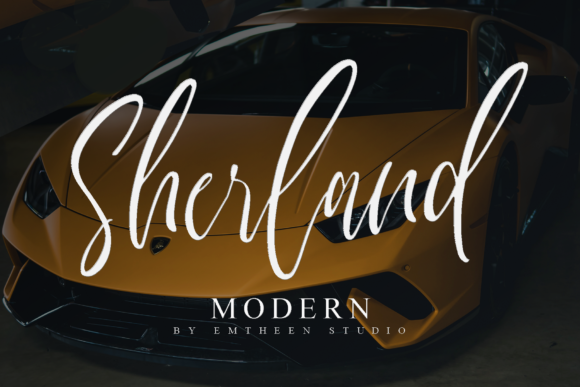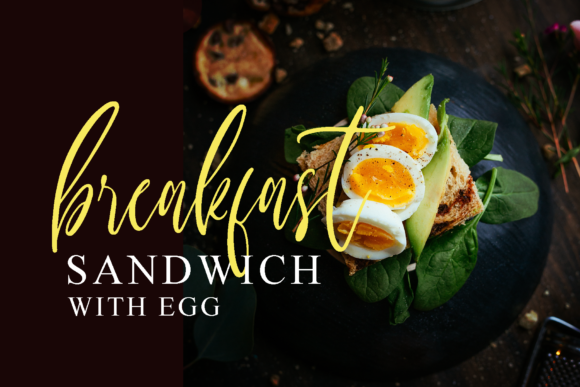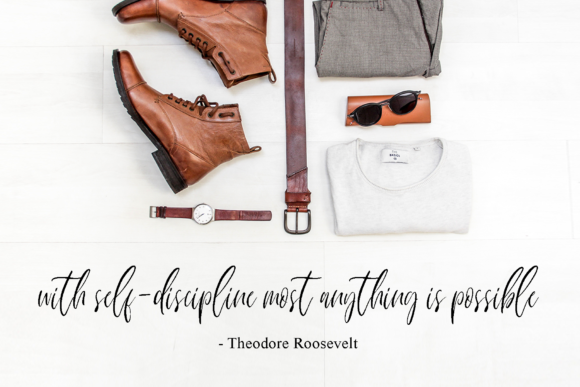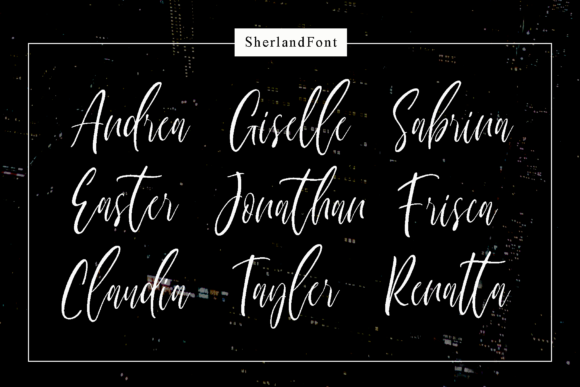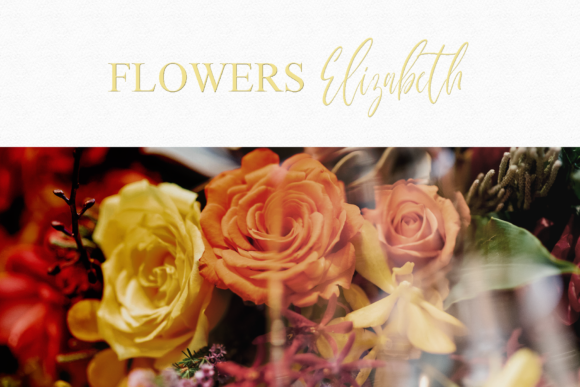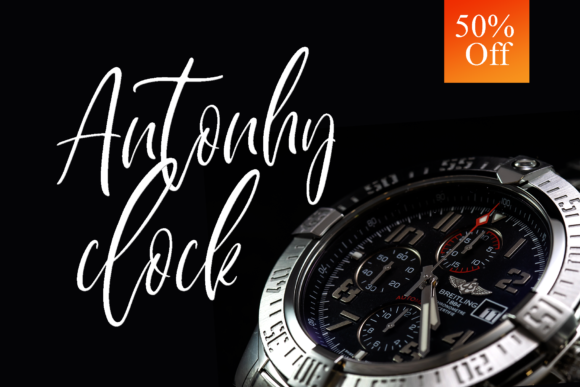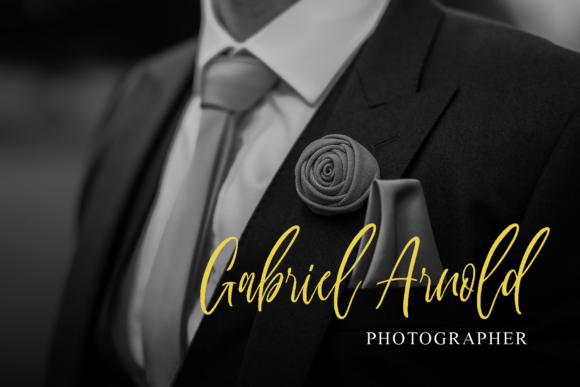
Sherland Modern Font
About Sherland Modern Font
Sherland Modern is an elegant and stunning handwritten font with incredible elements. Fall in love with its sophisticated charm.